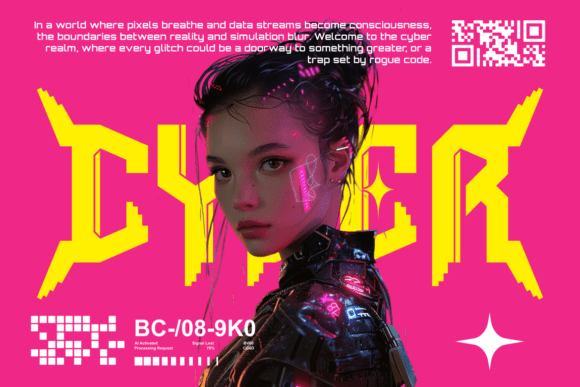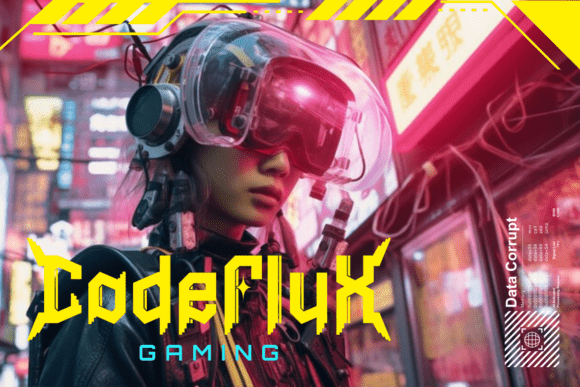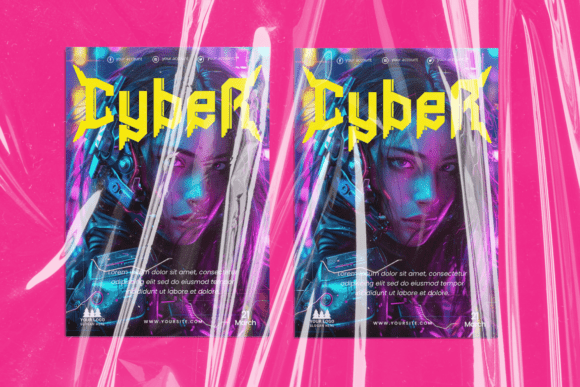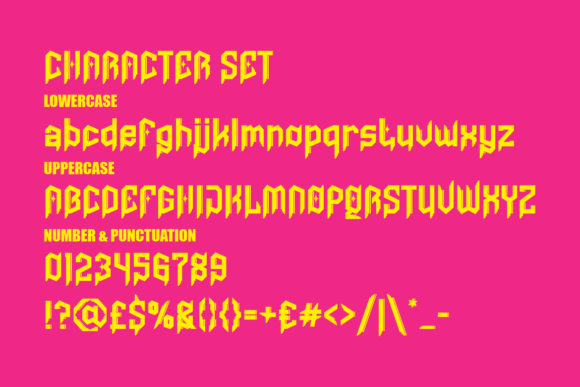
The Birth of a New Era in Font Design
As a designer, have you ever been stuck in a creative rut, searching for the perfect font to give your project that extra oomph? The spark of inspiration can strike at any moment – perhaps it’s a neon-lit cityscape, a futuristic sci-fi movie, or the pixelated graphics of an old-school video game. For me, it was the electrifying fusion of digital grit and rebellious design that sparked the creation of the Hypergame Font.
With its bold, energetic presence, the Hypergame Font is designed to amplify every visual, whether it’s a VR game branding, synthwave album cover, or dystopian movie poster. Its sharp, pixel-like cuts and glitch-inspired edges evoke the immersive spirit of gaming, sci-fi, and cyber-themed media, making it the perfect addition to any designer’s arsenal.
As a designer, you know the value of a font that can elevate your work and leave a lasting impression. The Hypergame Font is your weapon of choice for futuristic logos, titles, and headlines that demand presence and spark curiosity.
Hypergame Font Key Features
- Unique Characteristics: The font features a unique blend of futuristic and retro elements, making it perfect for games, sci-fi, and fantasy projects.
- Glyph Set: The font includes a comprehensive set of glyphs, including uppercase and lowercase letters, numbers, punctuation, and special characters.
Designer Review: Hypergame Font
I recently had the chance to work with the Hypergame Font, and I must say it’s an interesting choice for gamers and fans of futuristic designs. ✨ The font’s bold and futuristic aesthetic makes it perfect for game titles, logos, and other UI elements. It’s also highly customizable, allowing designers to adjust the spacing and line height to fit their specific needs.
- ✨ Highly customizable with various spacing and line height options
- ✨ Perfect for game titles, logos, and other UI elements with a futuristic design
- ✨ Includes multiple font weights and styles, making it versatile for different applications
However, there are some limitations to consider. ⚠️ The font’s bold and futuristic design may not be suitable for all types of projects, such as business reports or academic papers. Additionally, some characters may not render properly in certain font sizes or styles, which could affect the overall design.
- ⚠️ May not be suitable for business reports or academic papers
- ⚠️ Some characters may not render properly in certain font sizes or styles
Overall, I think the Hypergame Font is a great choice for designers who want to create a futuristic and bold look for their projects. However, it’s essential to consider the limitations and ensure that the font will work well in the specific context.
Getting the Most Out of Hypergame Font
To get the most out of Hypergame Font, use it for:
1. Gaming-related designs and graphics.
2. Retro-style graphics and posters.
3. Adding a touch of nostalgia to your designs.
Hypergame Font is commonly used for:
1. Gaming logo designs.
2. Retro-style video game posters.
3. Graphic design elements, such as buttons and icons.
Q: What is the recommended point size for using the Hypergame Font in my game?
The recommended point size for using the Hypergame Font is between 12 and 18 points. This range provides a good balance between readability and visual clarity, and is well-suited for use in a variety of game environments and resolutions. However, you may need to adjust